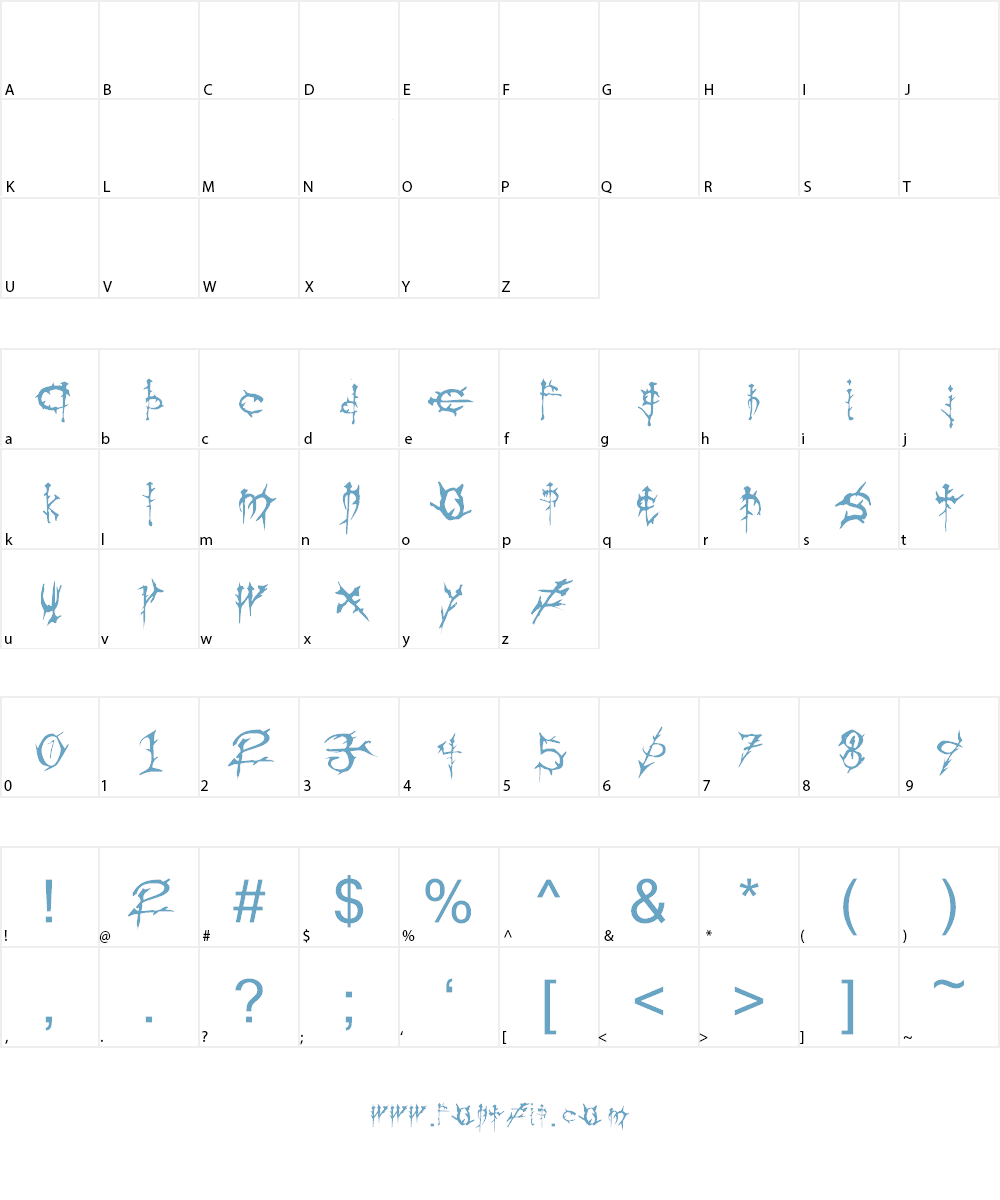
"Thorns" is the first true type font that I have made. It's perfect for a winter love letter or final note. The characters were all hand drawn on a napkin.